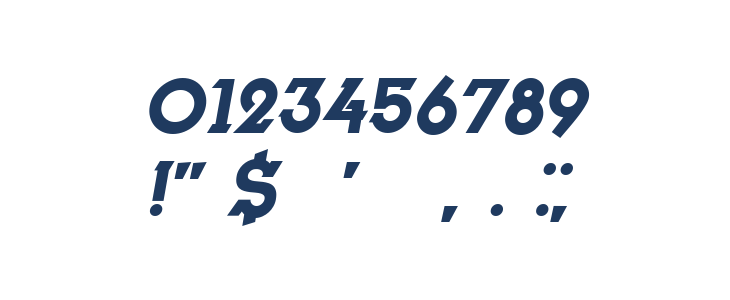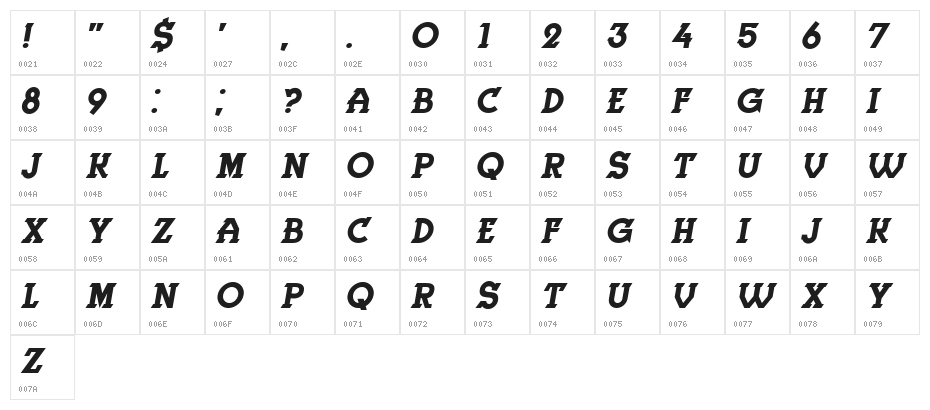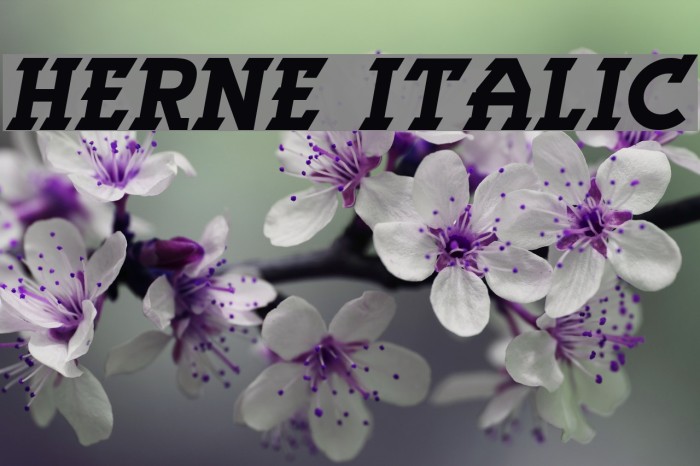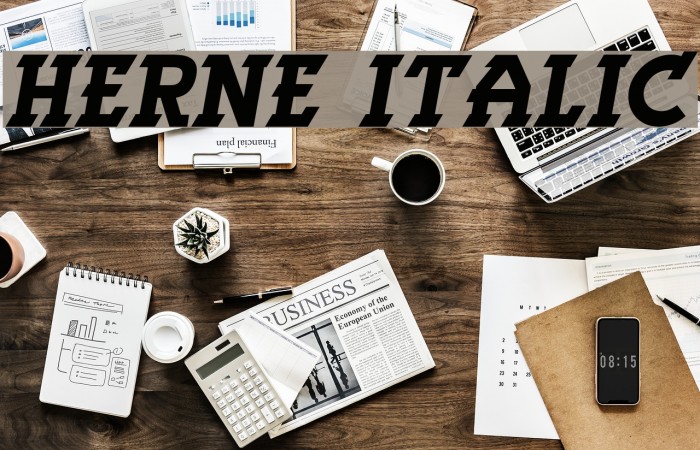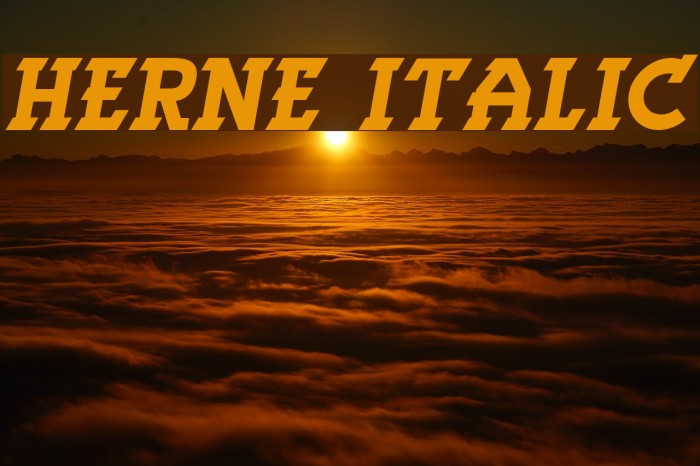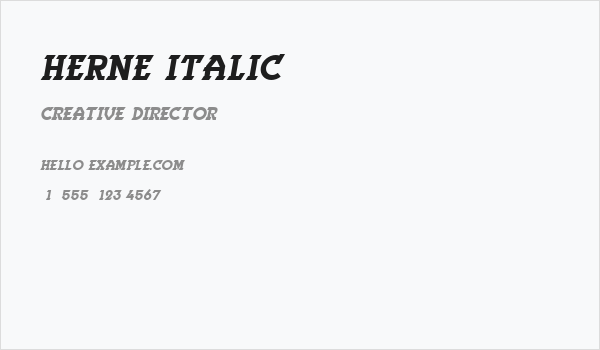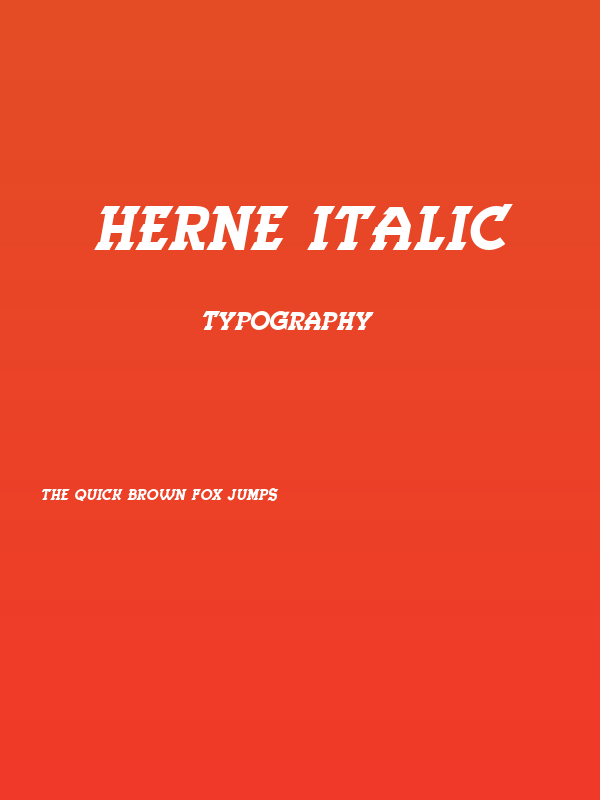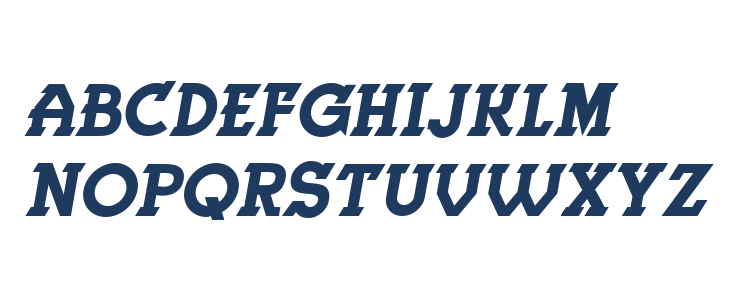
Herne Italic Font
Herne Italic Description
This font features a bold and dynamic style with a pronounced italic slant, giving it a sense of movement and energy. The characters are robust and impactful, making them highly visible and attention-grabbing. The strokes are thick and consistent, contributing to a strong visual presence. The design incorporates sharp angles and clean lines, creating a modern and assertive look. The numbers and special characters maintain the same boldness and slant, ensuring uniformity across all elements. This font is ideal for making statements and conveying a sense of urgency or importance.
| Proposed Projects | Ideal for headlines, posters, branding, and advertising where a strong impact is needed. |